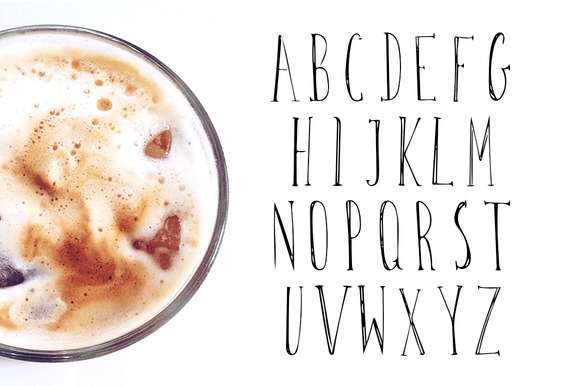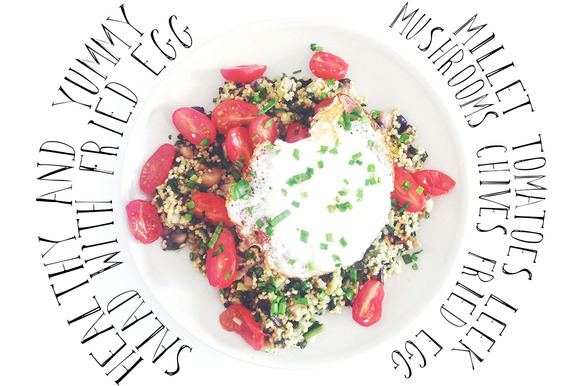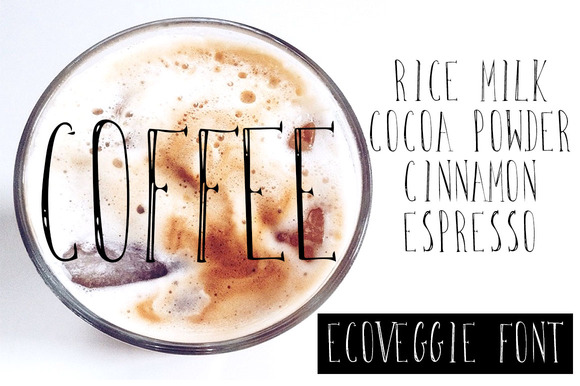
Ecoveggie serif font
After working with watercolors and pastels for long time I decided to make a mini font for you!
ECOVEGGIE – font ideal for food and drink projects. You can use it for recipes, menus, blog post or every other thing only you can imagine!
This font is hand-drawn and then digitalized by me and as always it’s been made with so much fun and love!